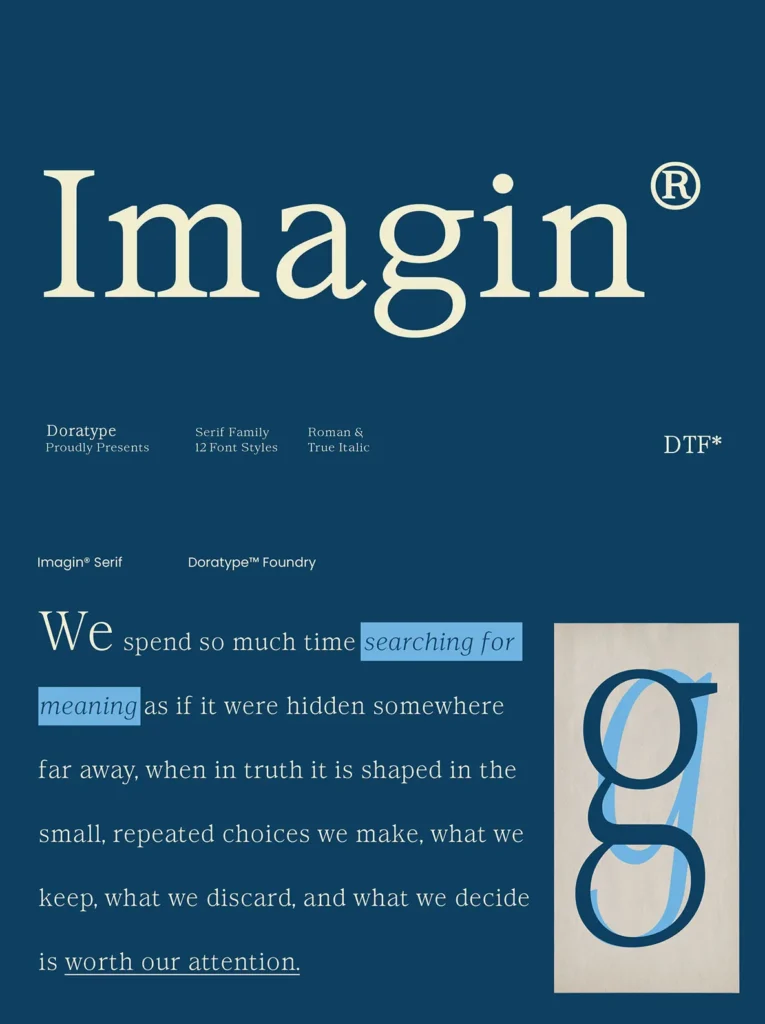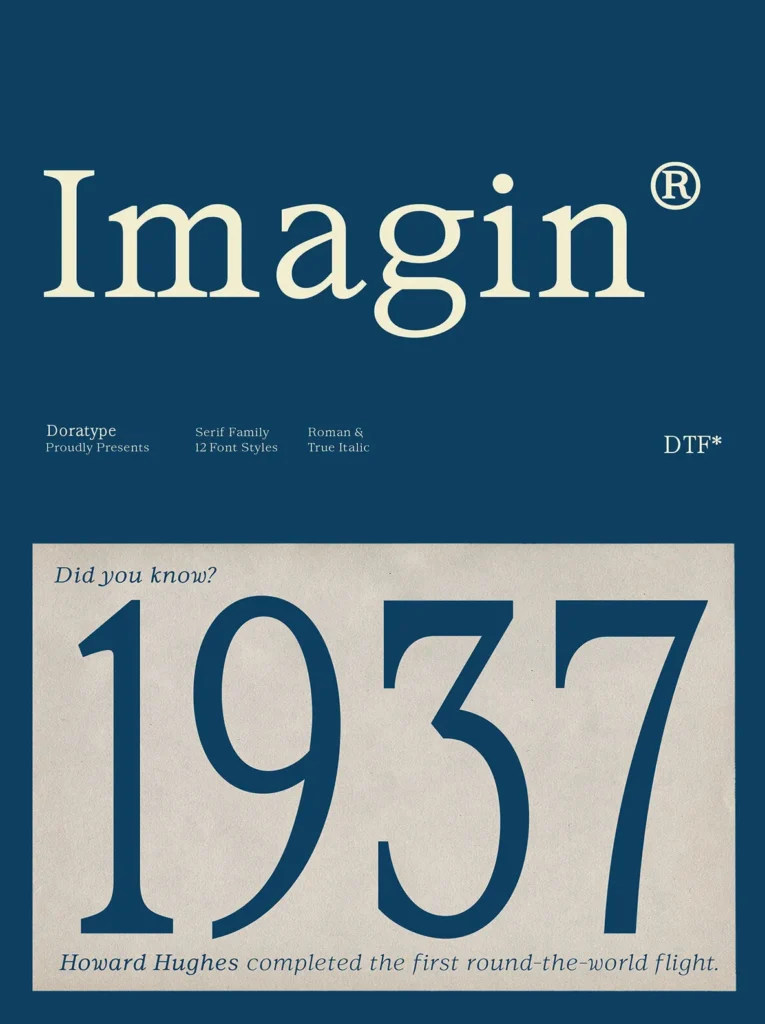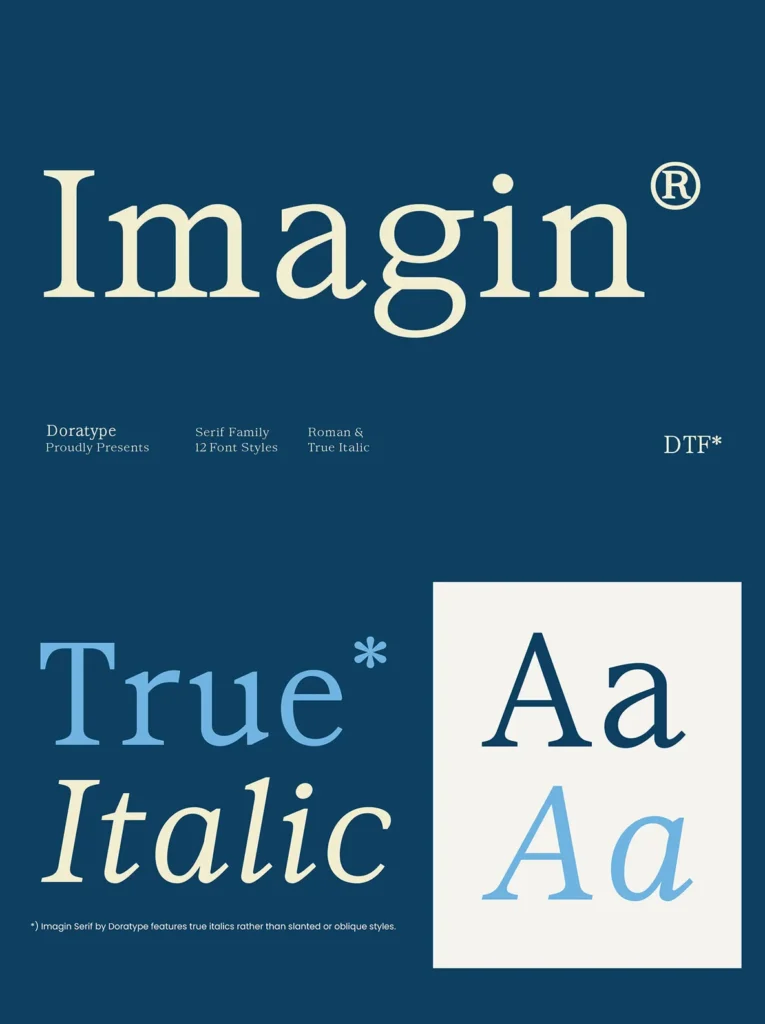
Imagin — Warm Serif Authority
Imagin is an elegant serif typeface with a warm, classic feel. Its letterforms show subtle contrast between thick and thin strokes, supported by gentle curves that give the font a welcoming presence. Detailed terminals and balanced proportions help maintain clear readability, making Imagin well suited to refined typographic settings where tone and clarity both matter.
This serif font is suitable for branding, editorial design, and visual displays that need to express luxury, trustworthiness, and a modern classic character. The accompanying Roman and italic styles add flexibility across layouts, allowing designers to build a consistent visual language with poise, warmth, and lasting appeal.